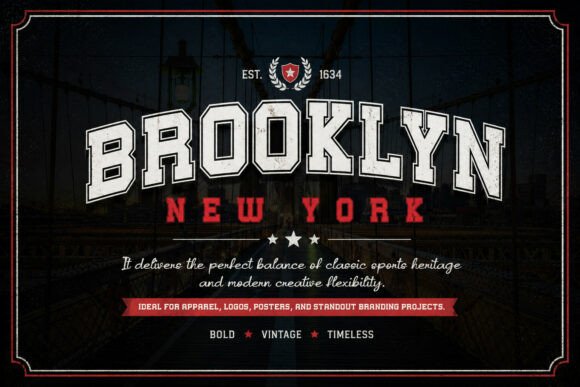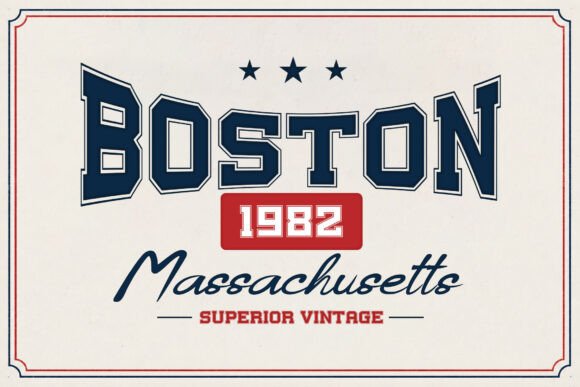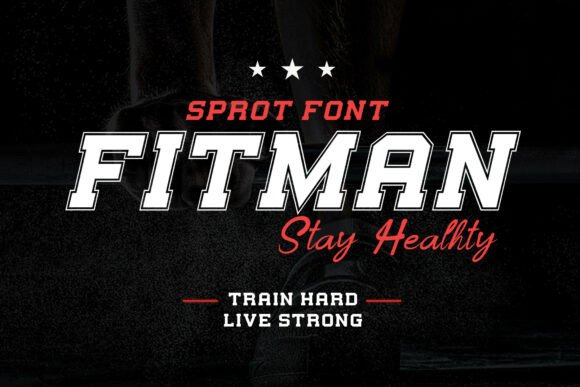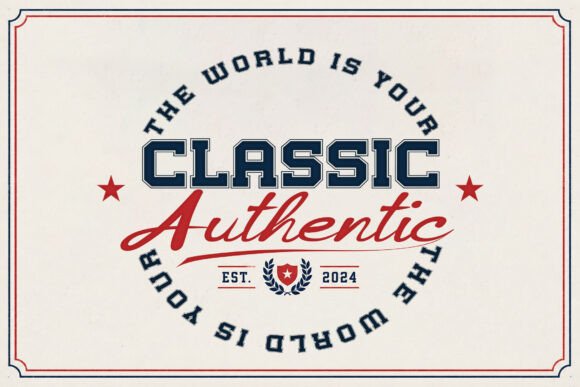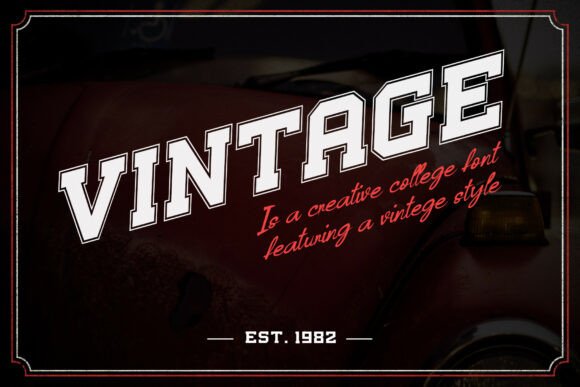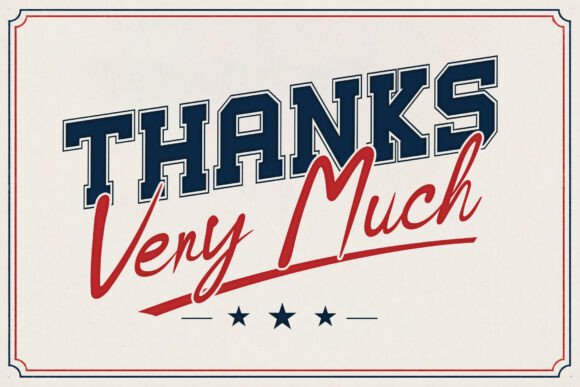
Introducing College Crest Font: The Ultimate Choice for Sporty and Elegant Designs
Are you a designer or crafty enthusiast looking for a font that embodies the spirit of college varsity style? Look no further than College Crest Font, a bold and elegant display font that combines the best of both worlds. In this article, we’ll dive into the features and benefits of College Crest Font, and explore how it can elevate your branding, logos, apparel, and promotional designs.
What is College Crest Font?
College Crest Font is a sporty display font that seamlessly blends bold varsity lettering with elegant script style. This unique fusion creates a distinctive and impactful font that’s perfect for designers and crafters seeking to make a statement. Whether you’re working on a logo, apparel, or promotional materials, College Crest Font delivers a strong collegiate identity that’s sure to turn heads.
Key Features of College Crest Font
- Bold Varsity Lettering: College Crest Font boasts bold, chunky lettering that’s reminiscent of traditional varsity fonts. This feature makes it perfect for creating eye-catching logos, titles, and headings.
- Elegant Script Style: The font’s elegant script style adds a touch of sophistication and refinement, making it suitable for a wide range of design applications, from apparel to promotional materials.
- High-Impact Branding: College Crest Font is designed to deliver a strong collegiate identity, making it an excellent choice for brands seeking to establish a bold and confident presence.
- Versatility: This font is perfect for various design projects, including logos, apparel, promotional materials, and more.
Benefits of Using College Crest Font
So, why choose College Crest Font for your design projects? Here are just a few benefits you can expect:
- Instant Recognition: College Crest Font’s bold and distinctive design ensures instant recognition, making it perfect for logos and branding applications.
- Professional Look and Feel: The font’s elegant script style and bold varsity lettering combine to create a professional and polished look that’s perfect for a wide range of design applications.
- Easy to Read: Despite its bold design, College Crest Font is surprisingly easy to read, making it suitable for use in a variety of contexts, from titles and headings to body text.
- Customization Options: As a digital font, College Crest Font can be easily customized to suit your design needs, from adjusting font sizes and styles to experimenting with different colors and textures.
Who Can Benefit from College Crest Font?
College Crest Font is an excellent choice for a wide range of designers, crafters, and businesses, including:
- Graphic Designers: Whether you’re working on a logo, branding project, or promotional materials, College Crest Font is a versatile and effective choice.
- Crafters and DIY Enthusiasts: If you’re creating handmade products, such as customized apparel, accessories, or home decor items, College Crest Font can add a professional and polished touch to your designs.
- Sports Teams and Organizations: As a font specifically designed to evoke the spirit of college varsity style, College Crest Font is an excellent choice for sports teams, leagues, and organizations seeking to establish a bold and confident brand identity.
- Marketing and Advertising Agencies: If you’re working on a campaign that requires a bold and attention-grabbing font, College Crest Font is an excellent choice.
| Font Name | College Crest Font |
| Author | NPNaay |
In conclusion, College Crest Font is an exceptional choice for designers, crafters, and businesses seeking to create bold, impactful, and elegant designs. With its unique fusion of bold varsity lettering and elegant script style, this font delivers a strong collegiate identity that’s perfect for logos, apparel, promotional materials, and more. Whether you’re a seasoned designer or a crafty enthusiast, College Crest Font is sure to elevate your designs and help you achieve your branding goals.
Get Ready to Elevate Your Designs with College Crest Font